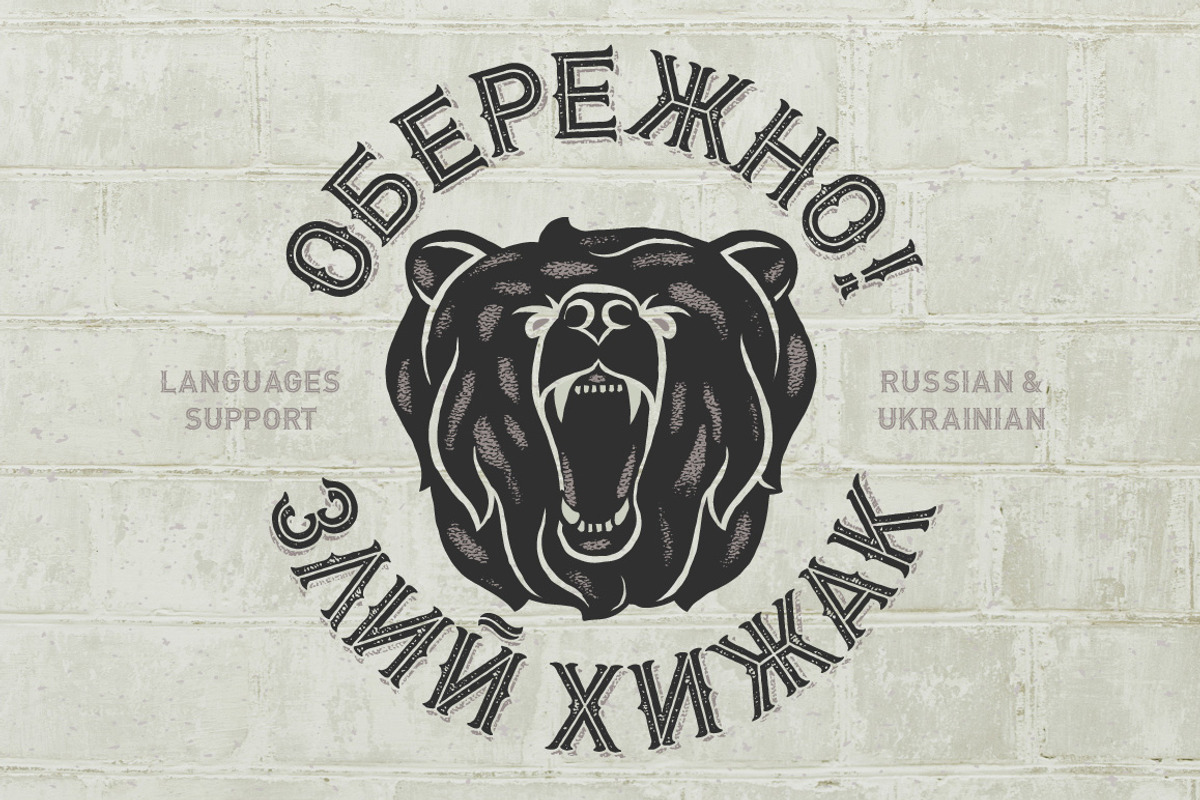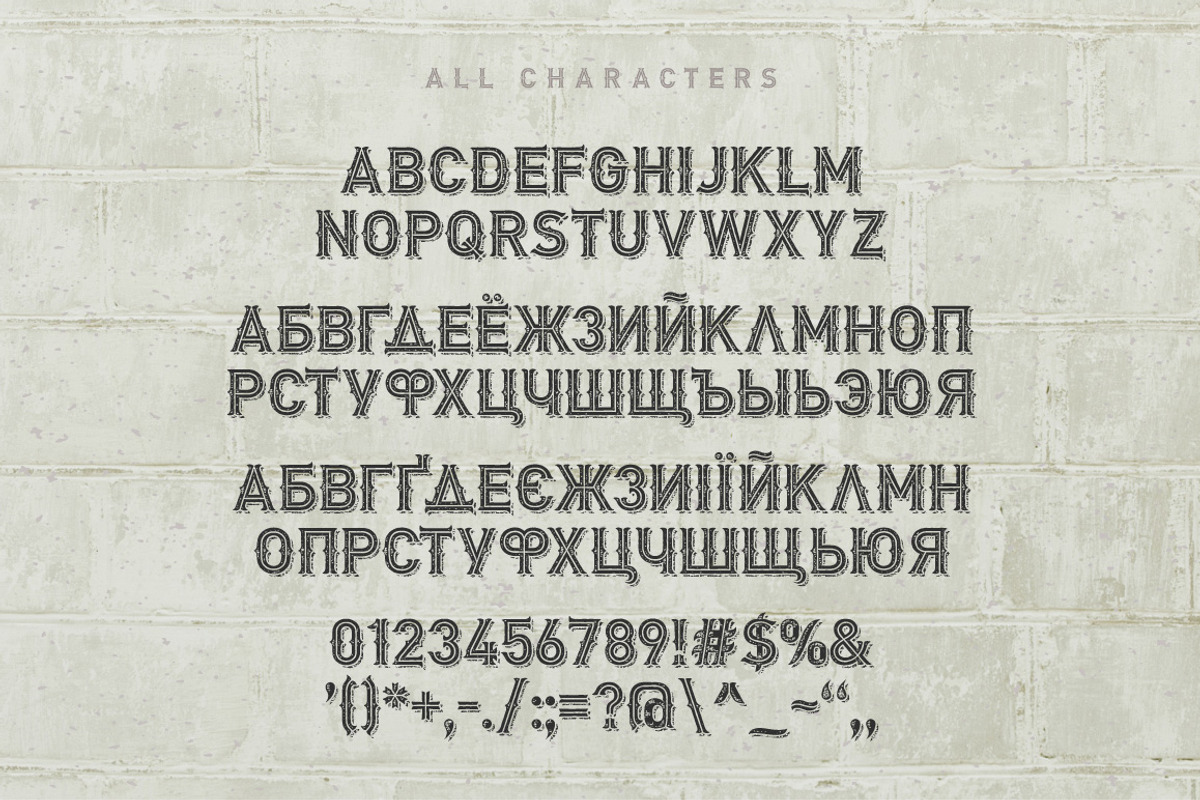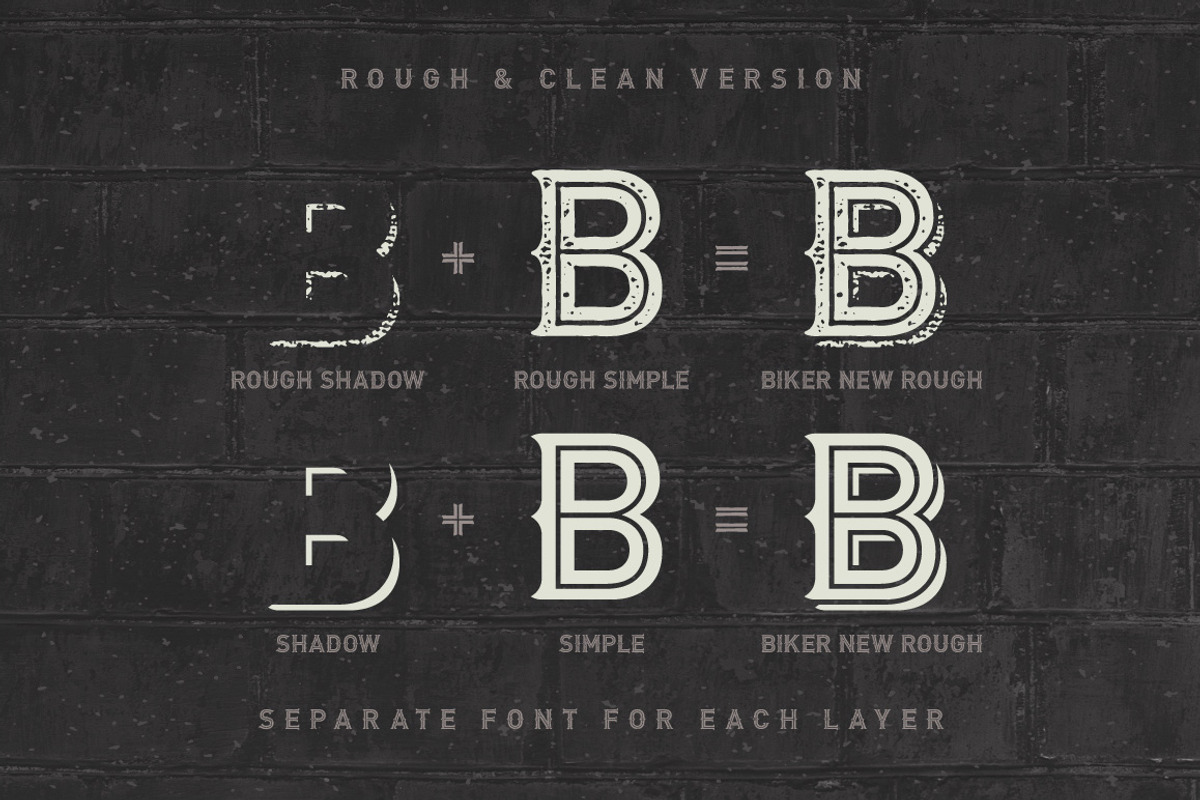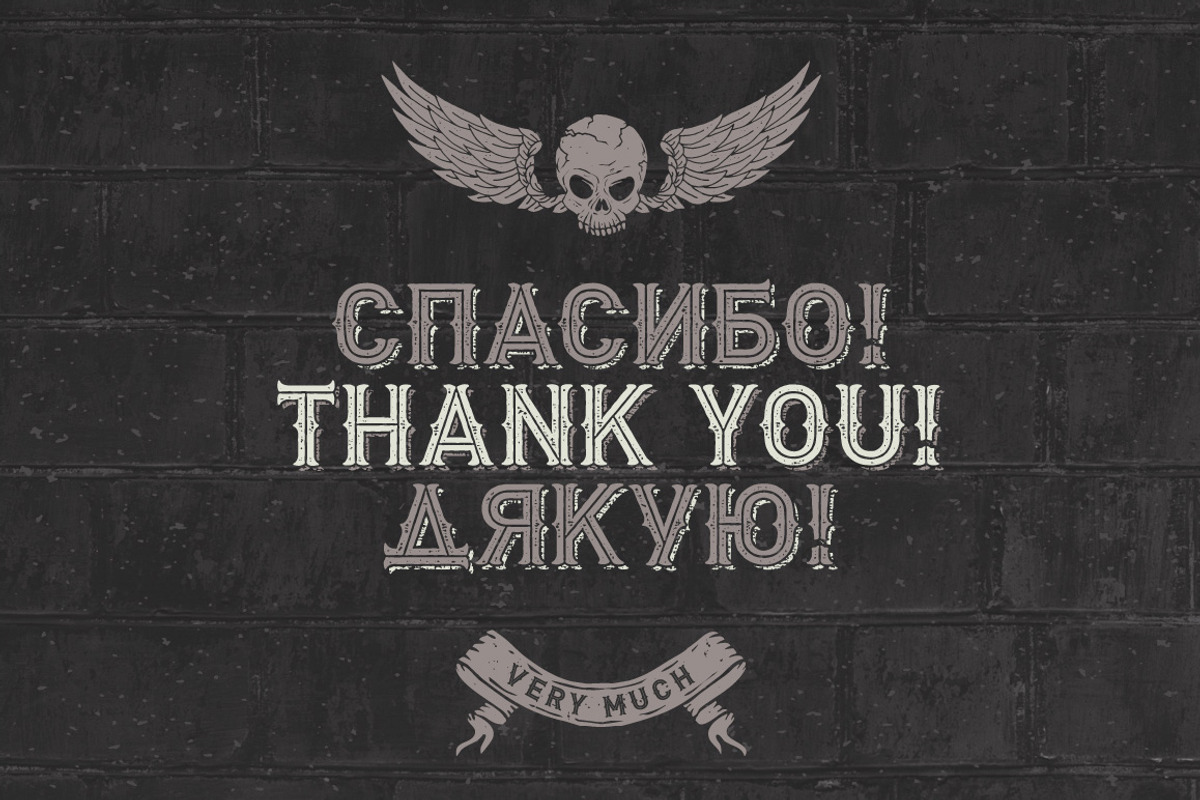
Biker Remastered font + graphics
Biker Remastered font + graphics by Gleb Guralnyk is a font selected for branding, posters, packaging, typography.
- Now it includes also cyrillic characters, numbers, and other basic glyphs (the fourth screenshot).
Why Biker Remastered font + graphics is worth a look
Biker Remastered font + graphics by Gleb Guralnyk fits naturally into Branding, posters, packaging, typography.